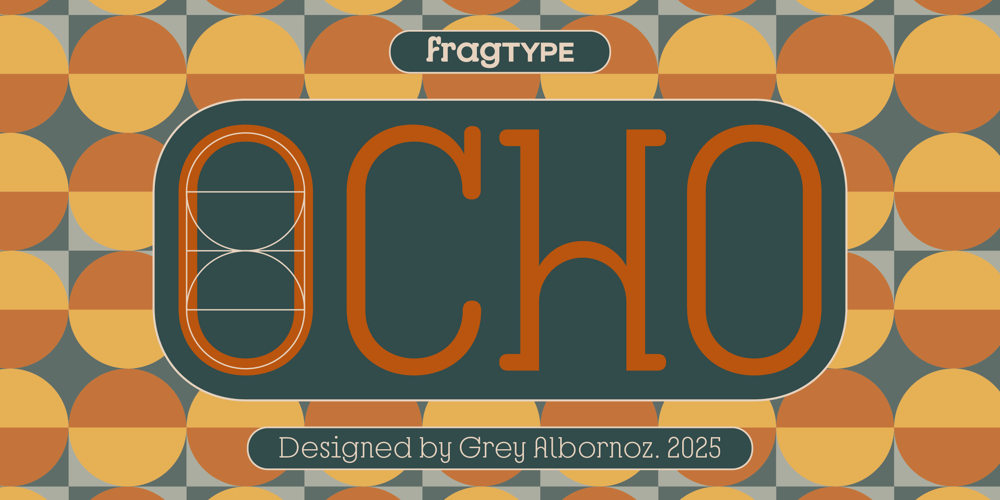
Ocho Font Family was designed by Grey Albornoz and published by fragTYPE. Ocho contains 6 styles and family package options. Born by the beaches of Portugal, Ocho is a font family that blurs genres and captivates attention.Ocho’s unique structure comes from an underlying geometry of circles and squares, a nod to the geometry that underpins much of Portugal’s iconic architecture and tiling. Ocho’s mixture of round and hard features combined with a semi-serifed construction give it a playful rhythm. The circular alternates, used sparingly amongst the condensed proportions, add a pop of life to the rigid structure.Ocho is a font family that defies categories, but maintains appeal.